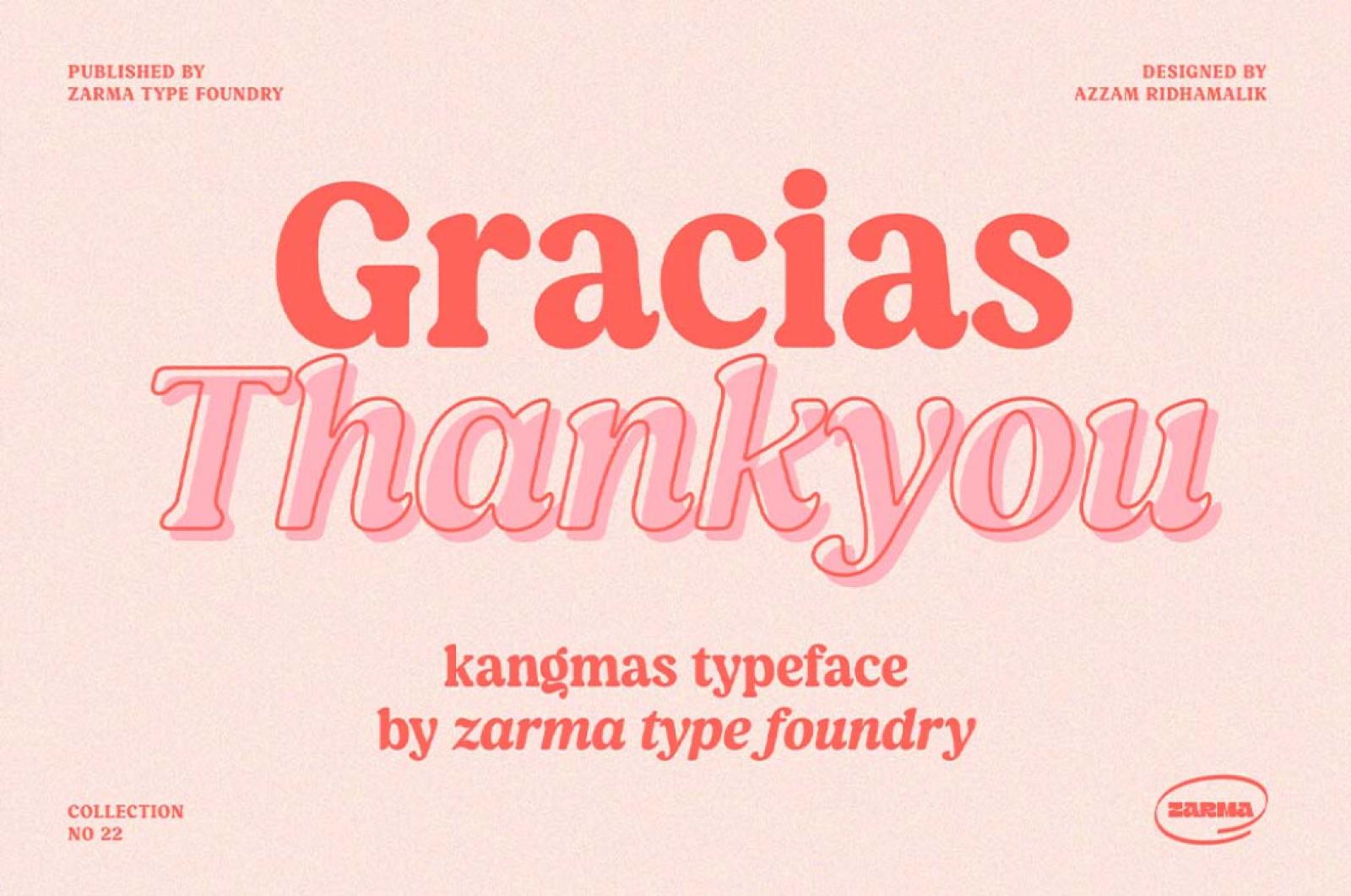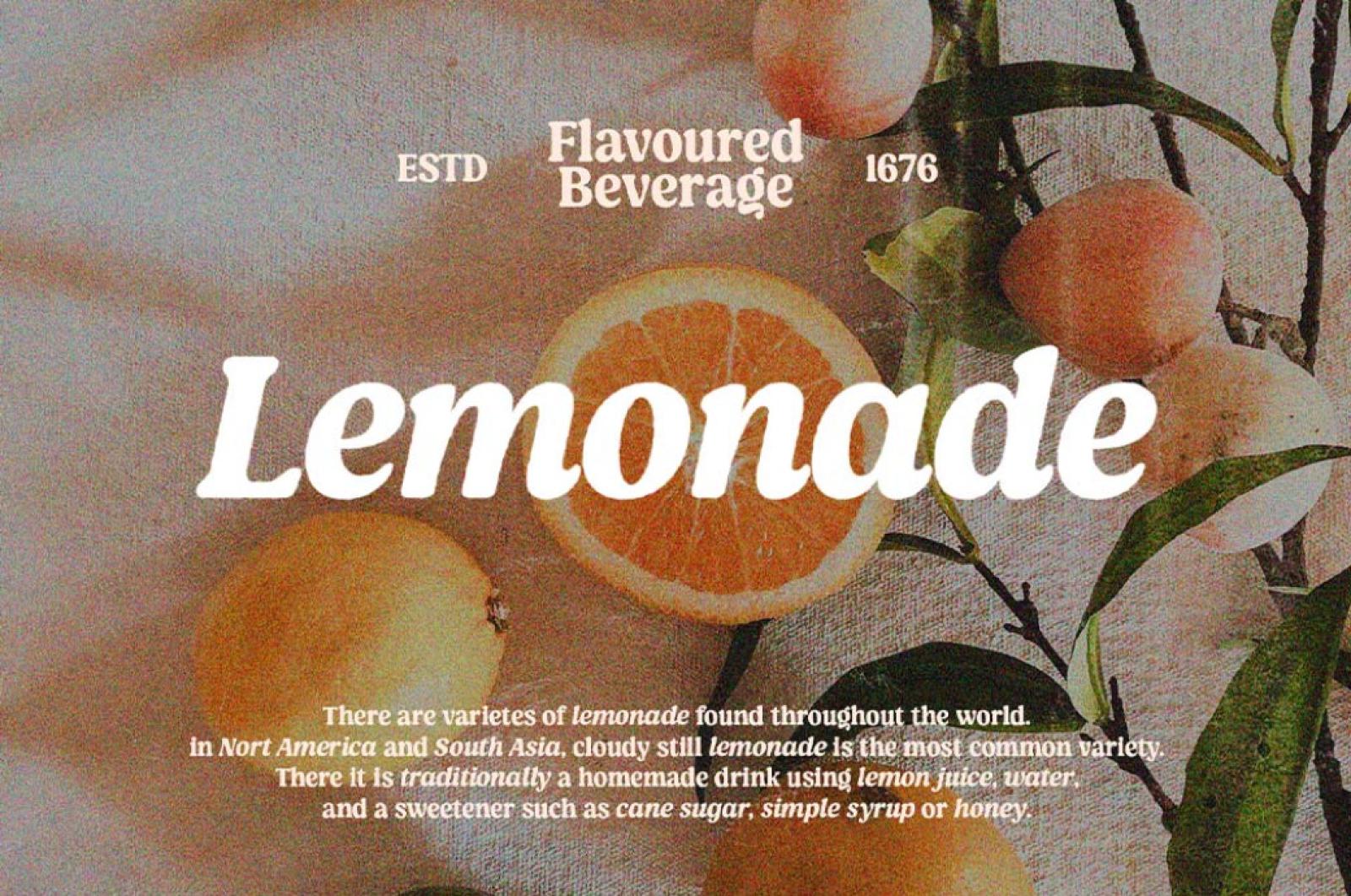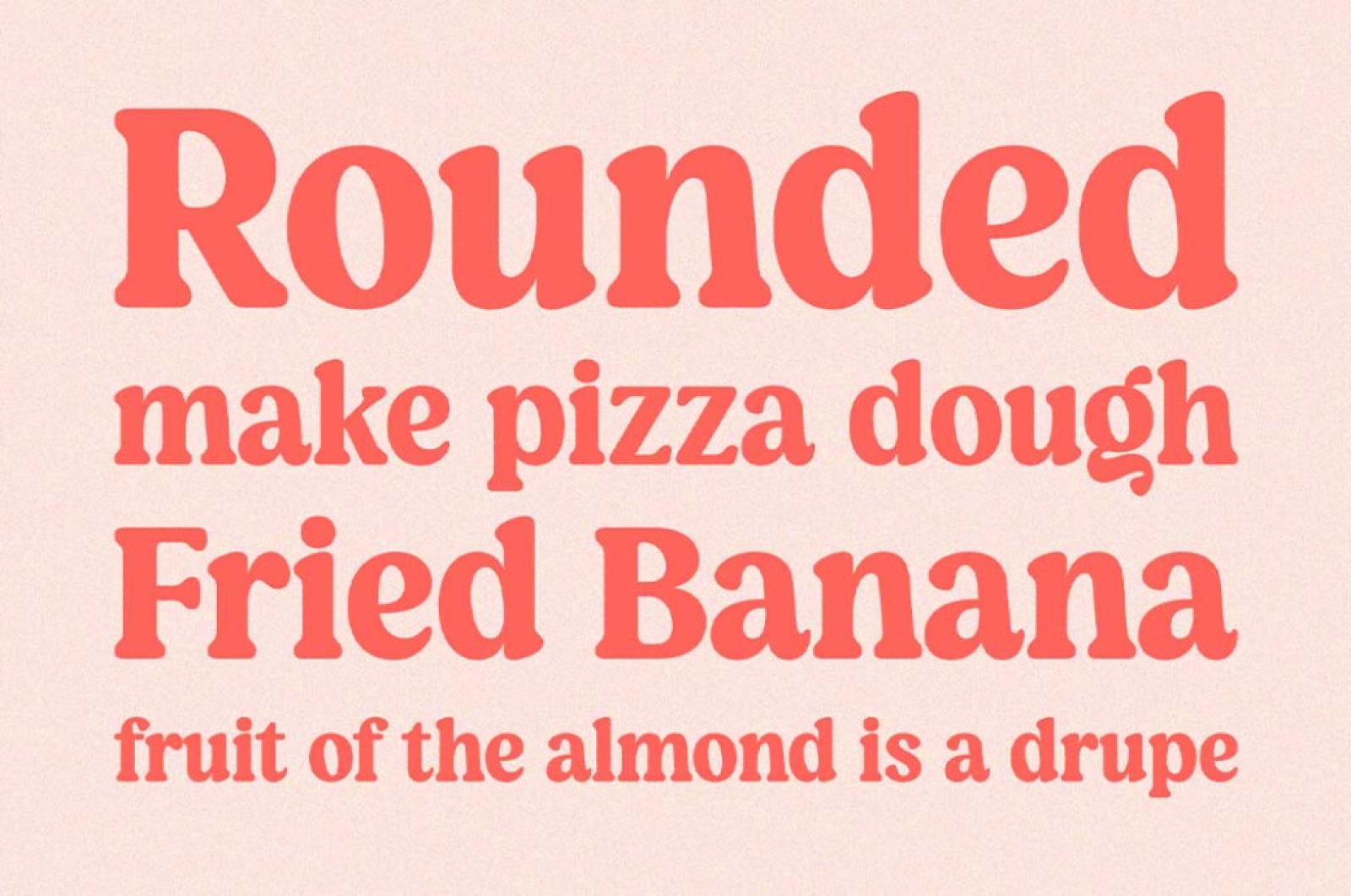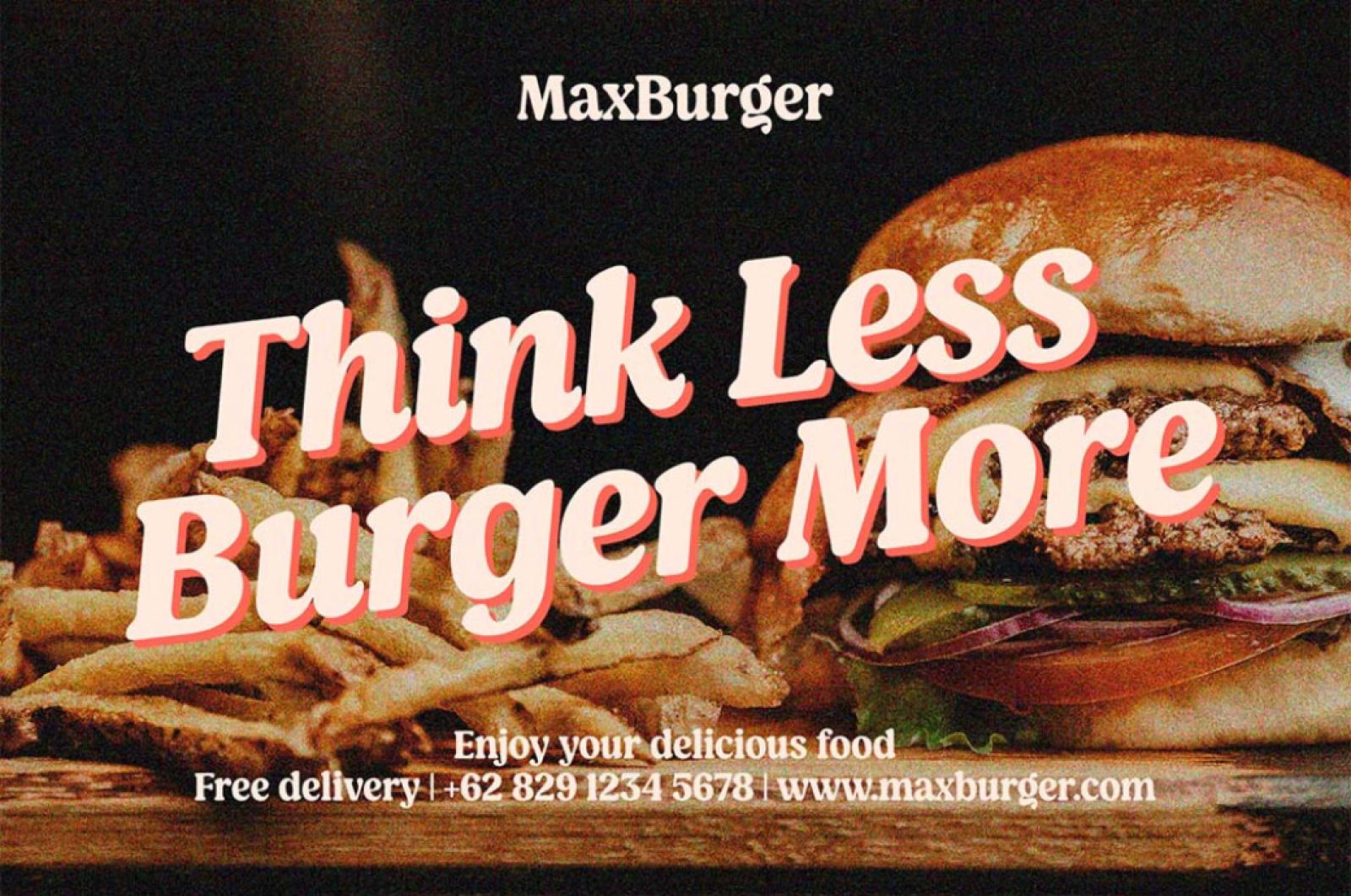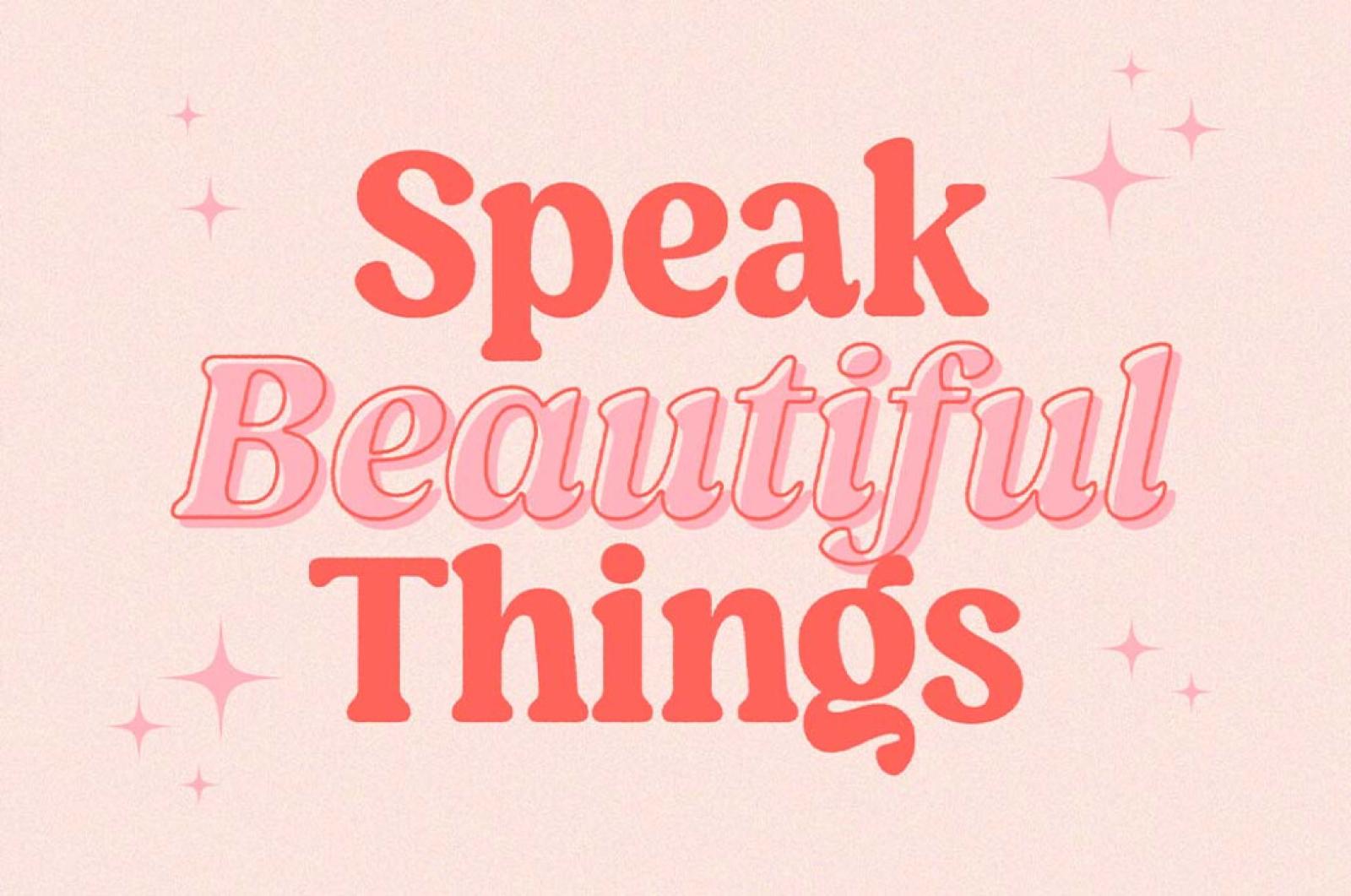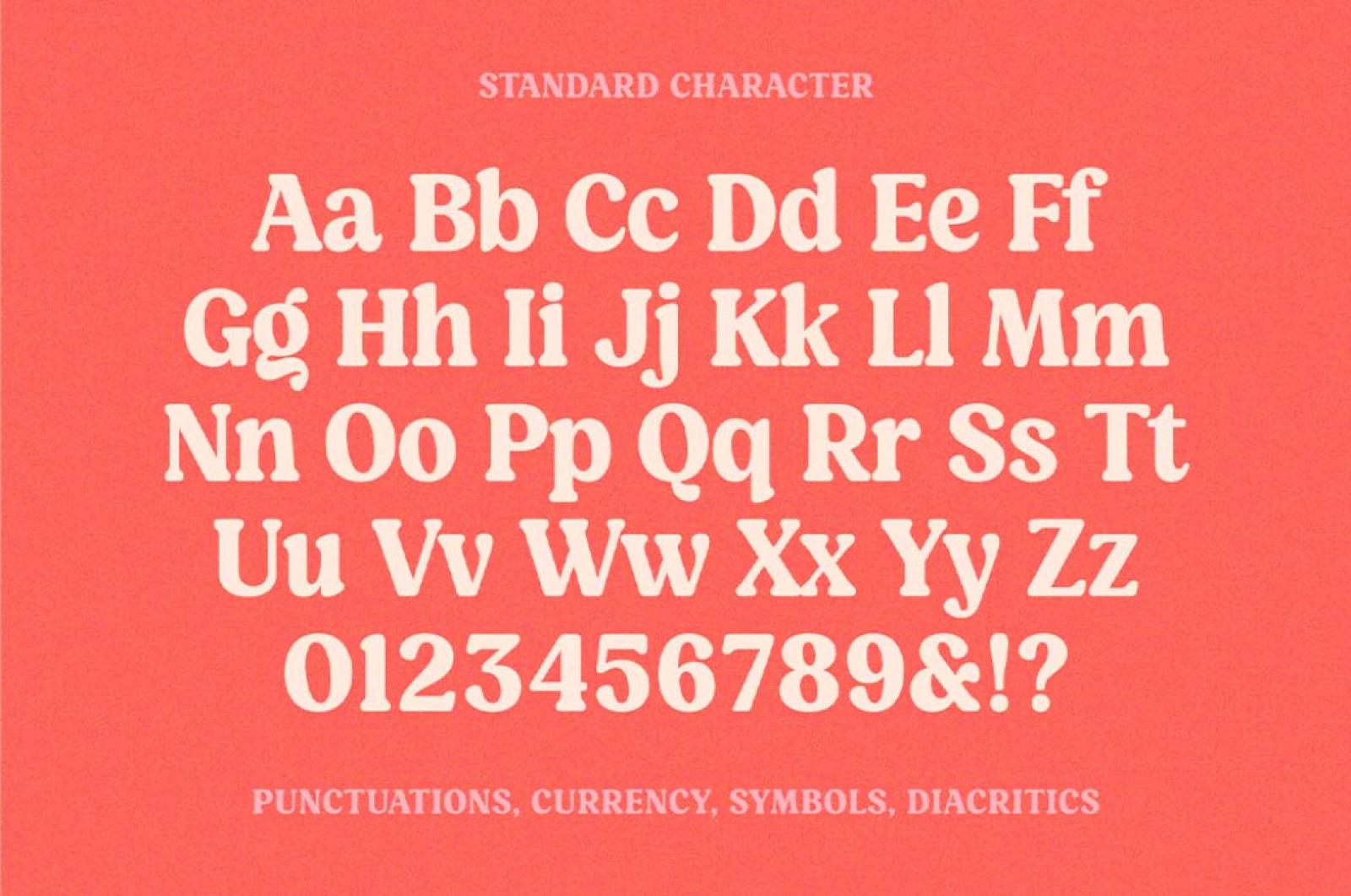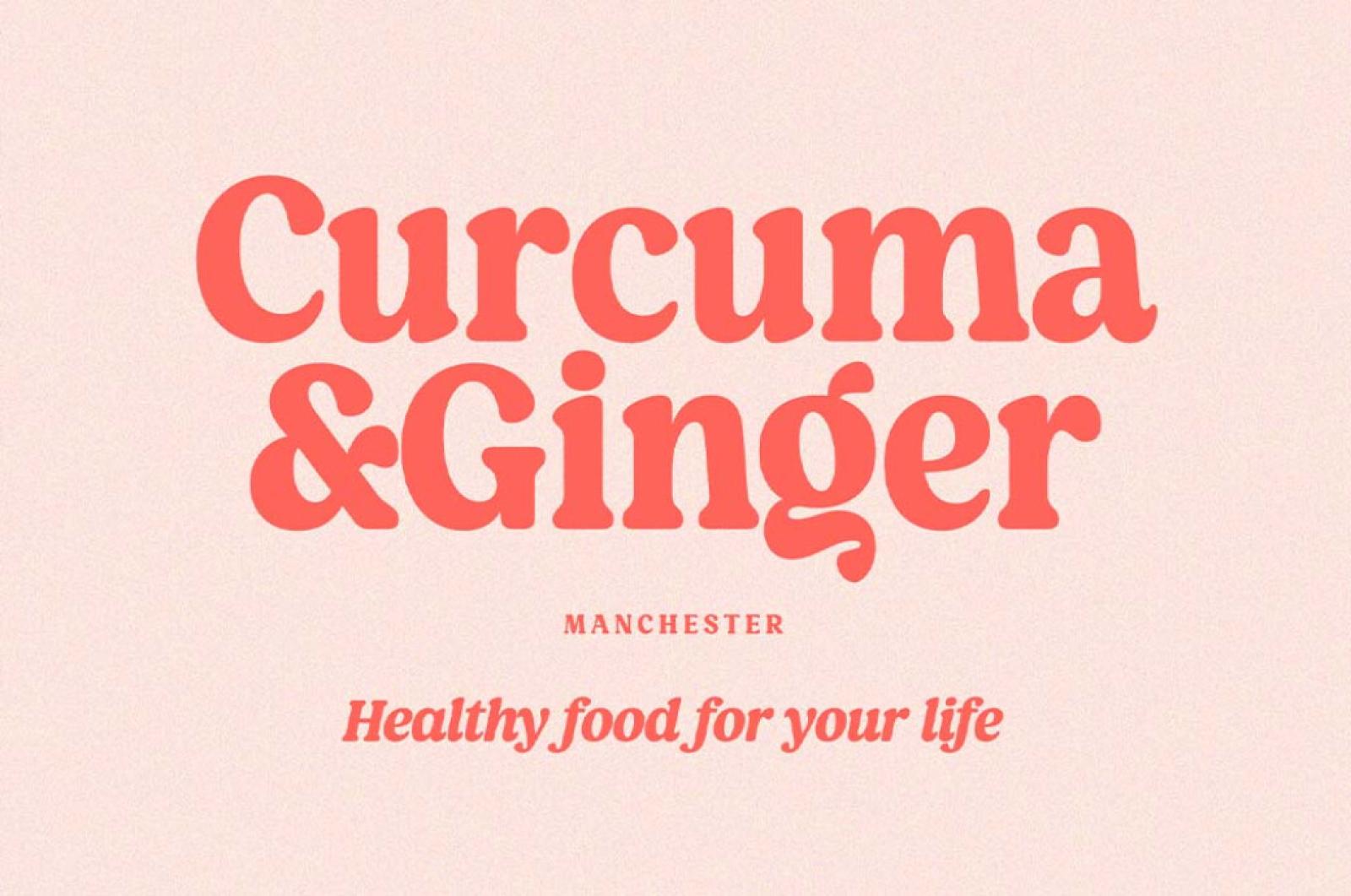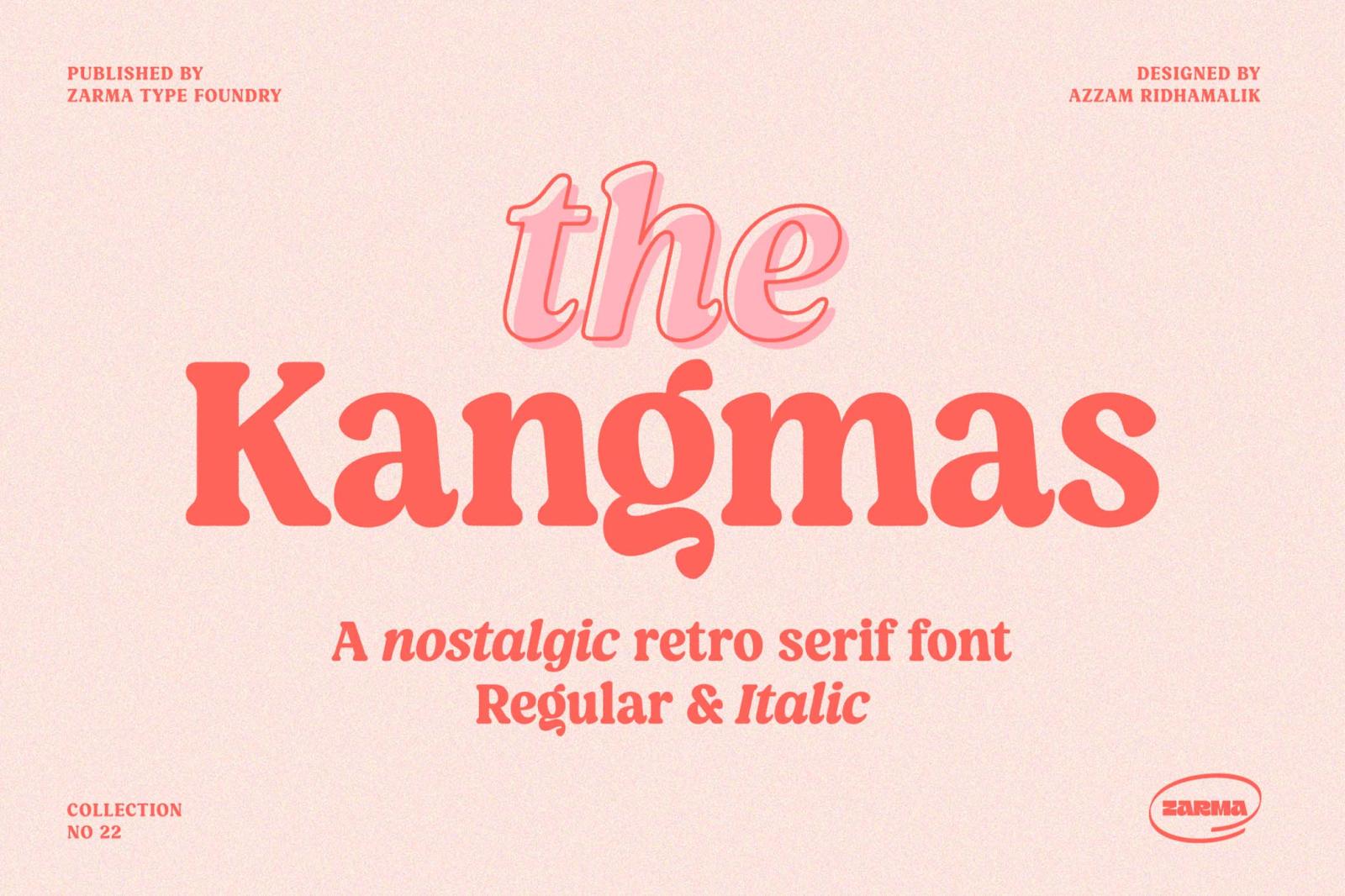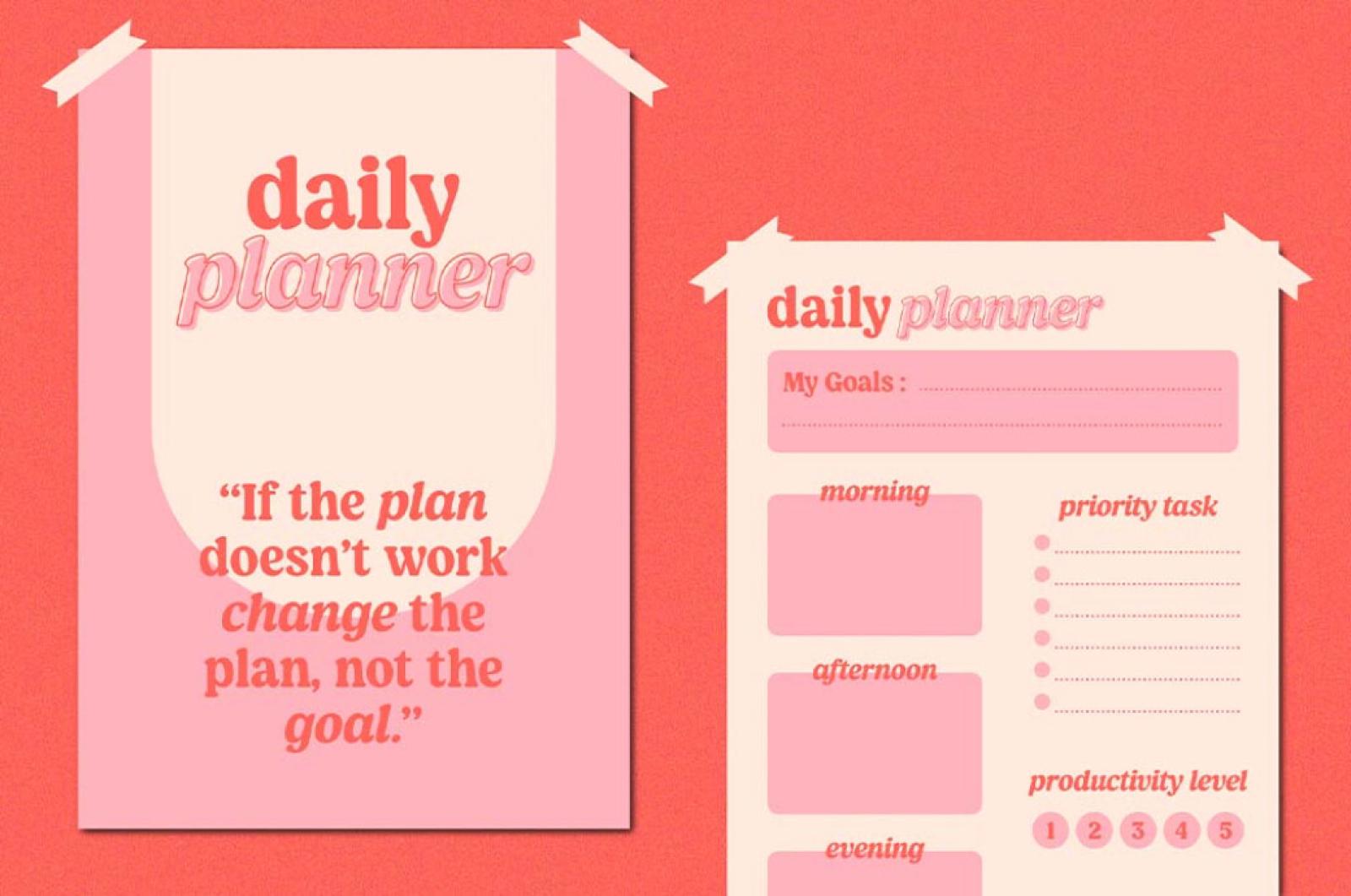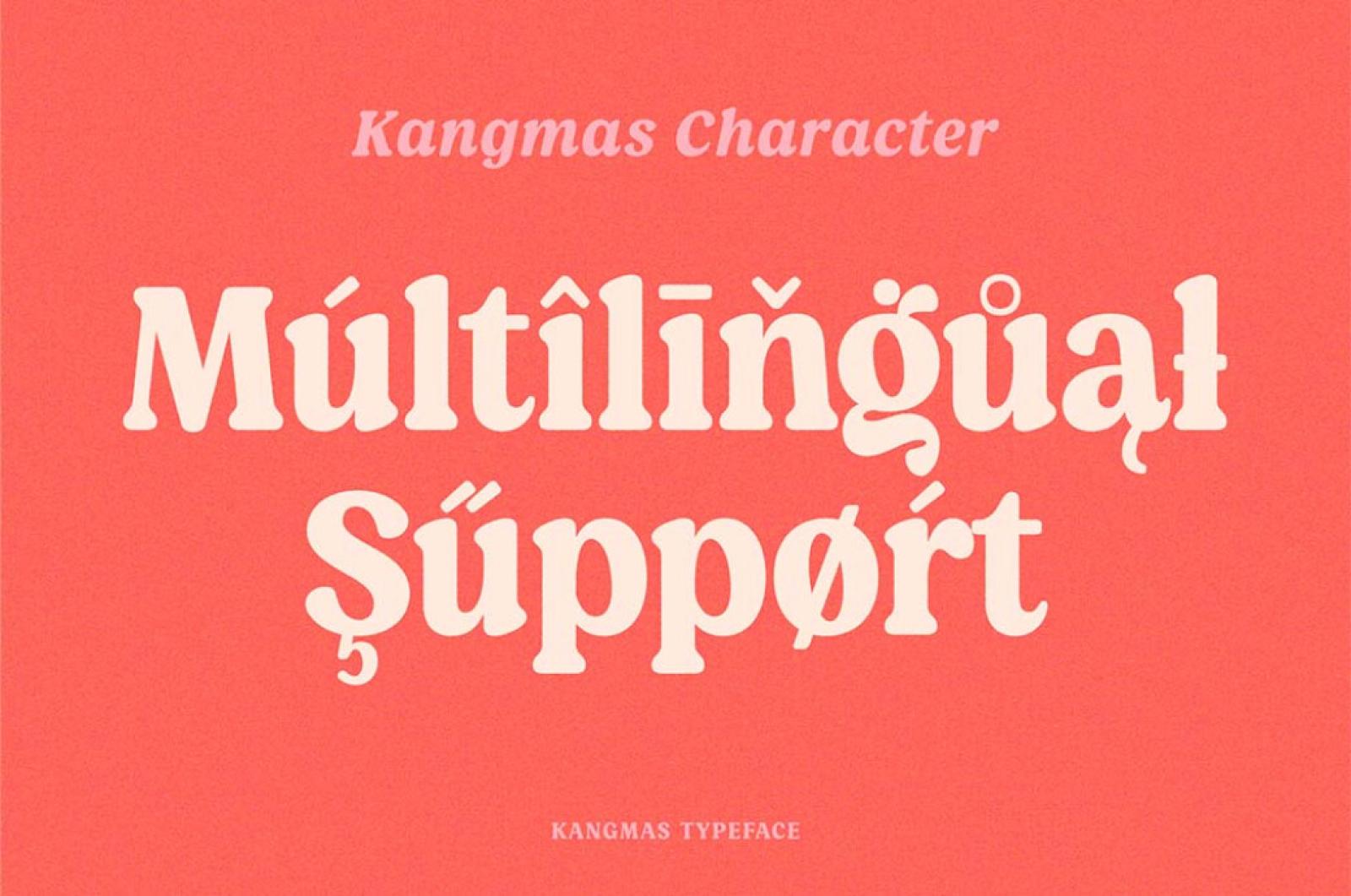
Kangmas — Nostalgic Retro Serif Font
The Kangmas celebrates the rounded typography of retro beauty products. It has the nostalgic warmth and familiarity of vintage packaging, distilled and reinvented with a modern twist to suit today's design needs.
This retro serif font is provided in regular and italic styles that are inherently harmonious and can be mixed and matched as you wish. Each typeface includes a full set of upper and lowercase letters, punctuation, symbols, and diacritics for extensive multilingual support. It will allow you to infuse a cozy retro vibe into your designs while staying chic and current.